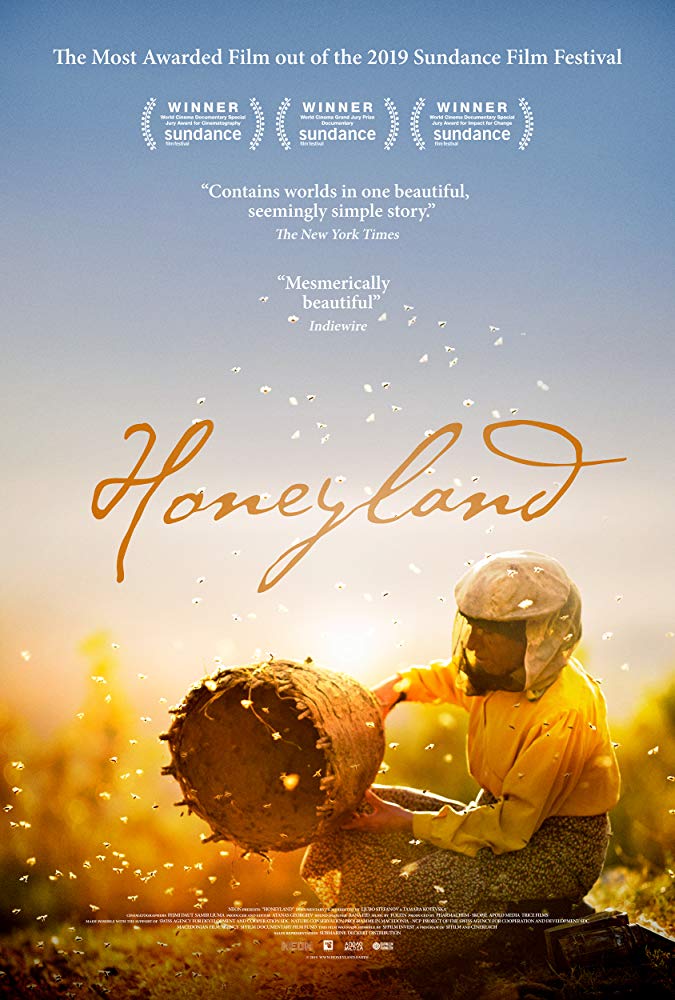
Honeyland (film) Font
DocumentaryHoneyland is a 2019 Macedonian documentary film that follows the life of a beekeeper and her struggles to maintain her way of life in the face of modern development. It won multiple awards including the World Cinema Grand Jury Prize at Sundance Film Festival.
The title of the film on the poster is written in a handwriting font called P22 Cezanne. This font is inspired by the handwriting of the famous 19th century artist Paul Cézanne and was created by the P22 Type Foundry in 1996.